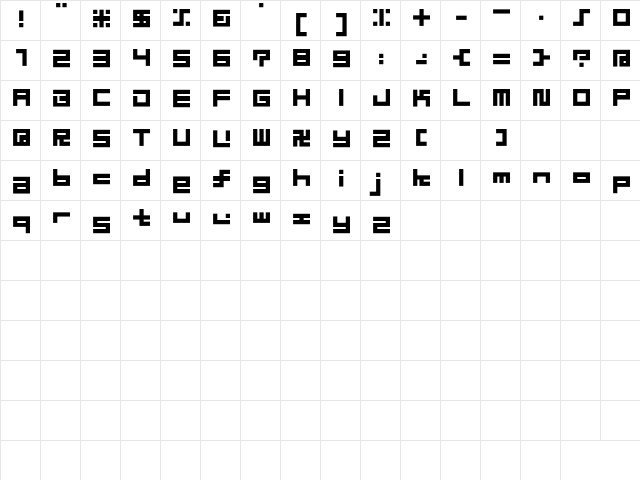
D3 Superstructurism Inline Regular
Design Context for D3 Superstructurism Inline Typeface
D3 Superstructurism Inline brings ornamental detail and strong personality to headlines and identities, where visual impact matters more than quiet functionality.
Font Pairing: Pair with a clean neutral sans-serif for body copy to let D3 Superstructurism Inline's character lead without overwhelming the composition.
Pro Tip: Treat D3 Superstructurism Inline as the centrepiece of your typographic hierarchy. One strong heading set in a decorative face can carry an entire layout.